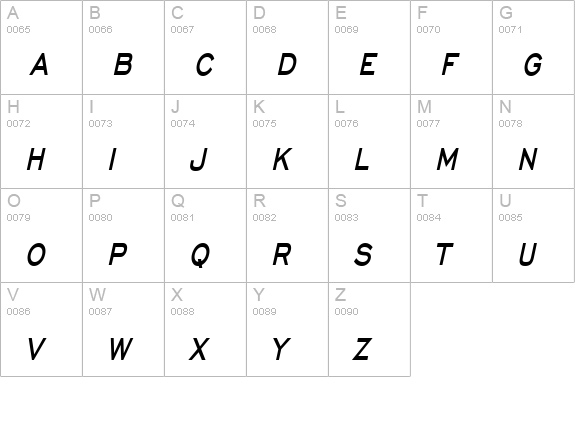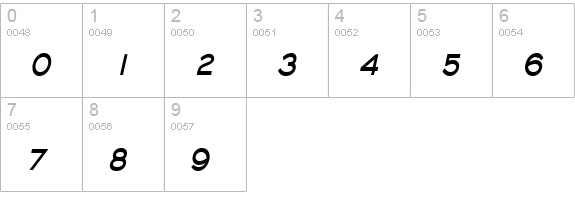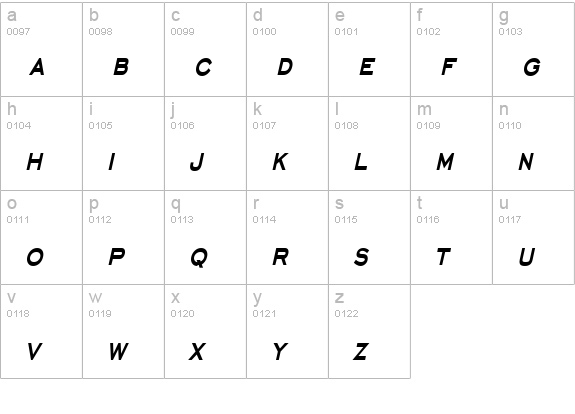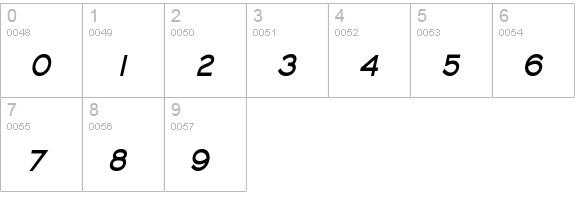
Chisel Thin Bold Italic is a delicate, low-contrast, italic variant in the Chisel typeface family \xE2\x80\x94 well suited to fashion editorial, minimal branding, and high-contrast display.
Introducing the stunning Chisel Thin Bold Italic font, a sleek and modern typeface that exudes sophistication and elegance. Its unique chiseled design adds a touch of edginess to any project, making it perfect for branding, headlines, and logos. The bold yet delicate strokes of this font create a striking visual impact that is sure to captivate your audience. This versatile font is ideal for both print and digital designs, offering a contemporary twist on traditional typography. Whether you're designing a poster, website, or packaging, Chisel Thin Bold Italic will elevate your project to the next level. Best of all, this font is completely free to download at FontsMarket.com. Don't miss out on the opportunity to enhance your designs with the exquisite Chisel Thin Bold Italic font today!